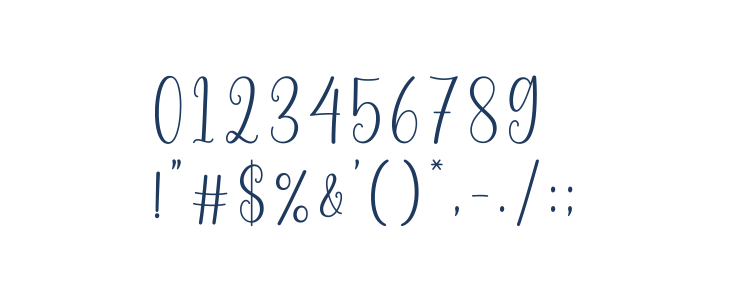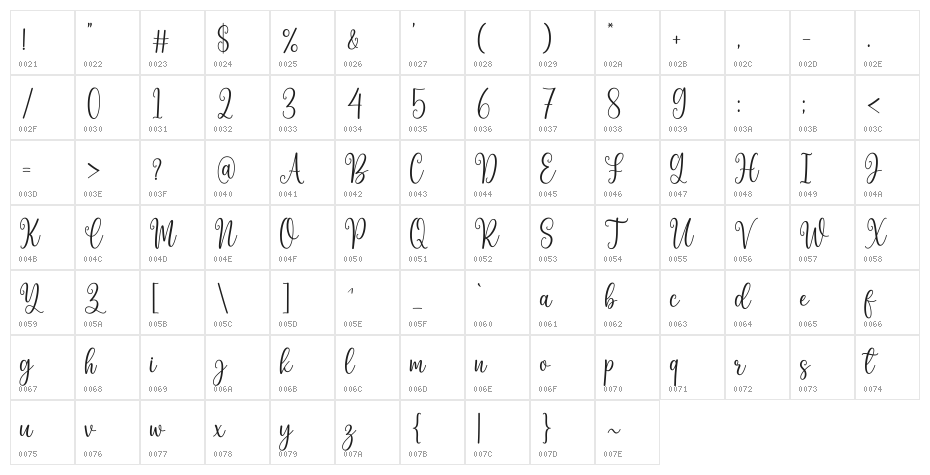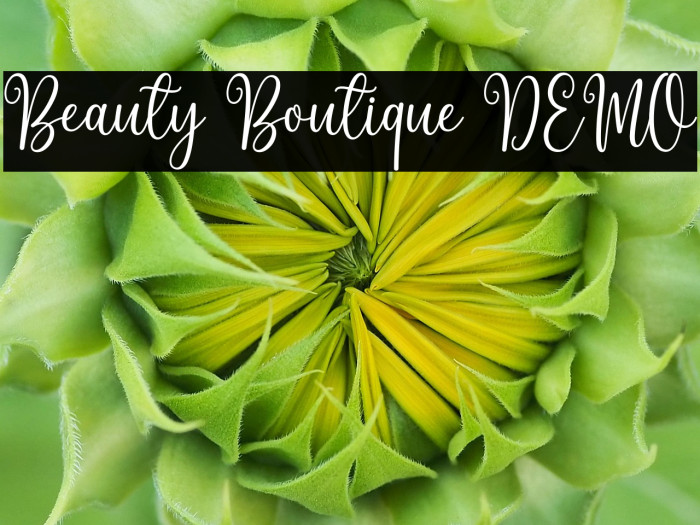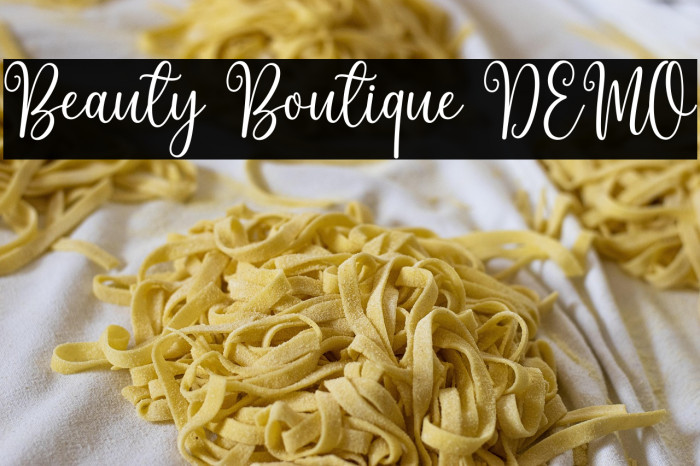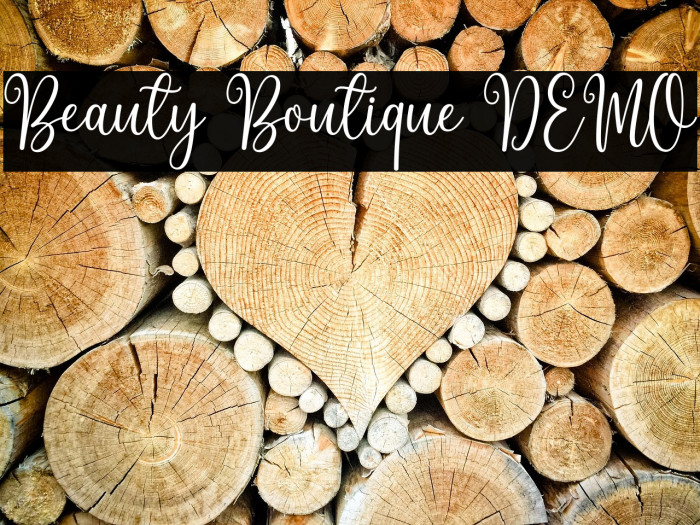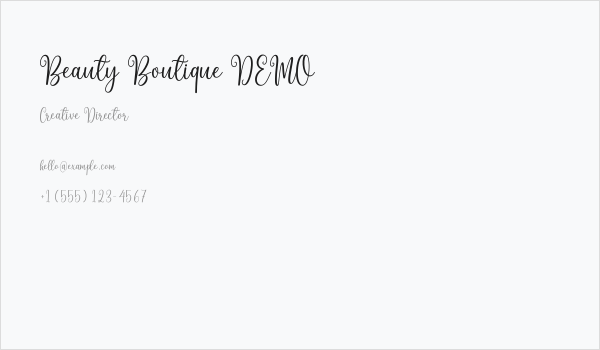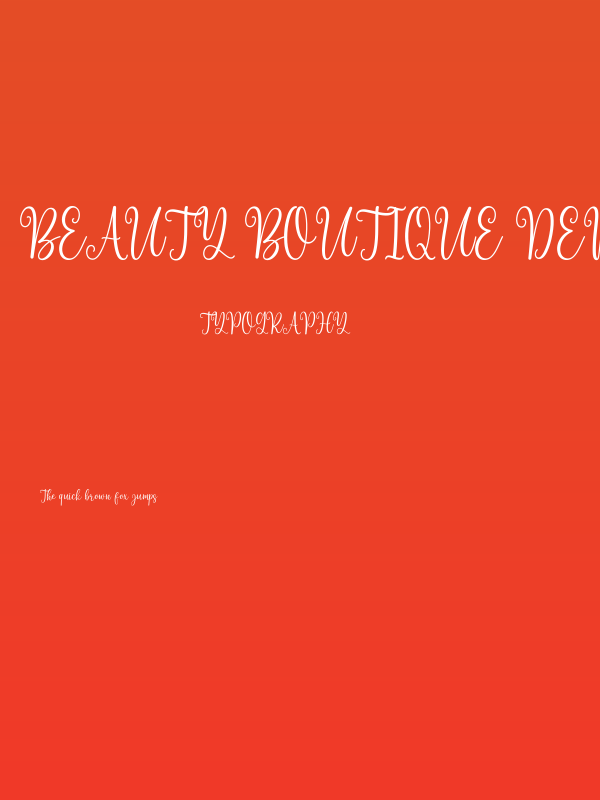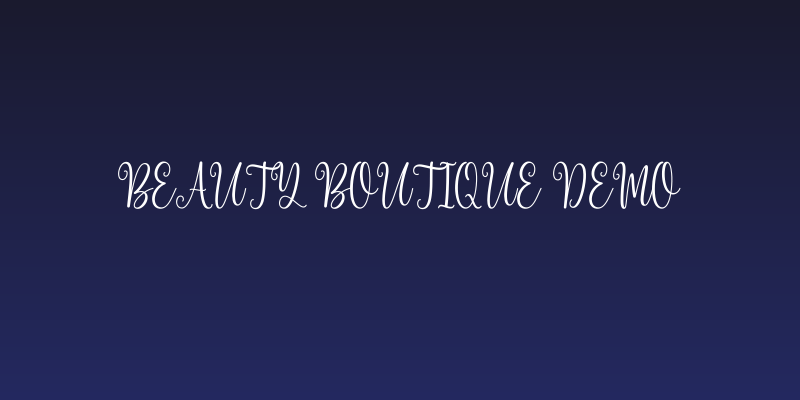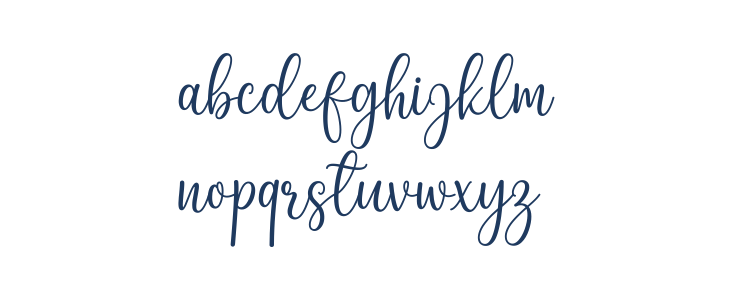
Beauty Boutique DEMO Font
This font features an elegant and flowing script style, characterized by its smooth, cursive lines and decorative flourishes. The uppercase letters are particularly ornate, with loops and swirls that add a touch of sophistication and charm. The lowercase letters maintain a consistent style, with a slightly more restrained approach, ensuring readability while still offering a stylish appearance. The numerals are uniquely designed, incorporating the same graceful curves seen in the alphabet, making them stand out with a distinctive flair. Special characters are also included, each crafted with the same attention to detail, ensuring a cohesive look across all elements. This font is ideal for projects that require a touch of elegance and personality, such as invitations, branding, and decorative prints.
| Use Case | Logos, Invitations, Decorative Prints |
| Proposed Projects | Ideal for wedding invitations, branding, decorative prints, and elegant stationery. |